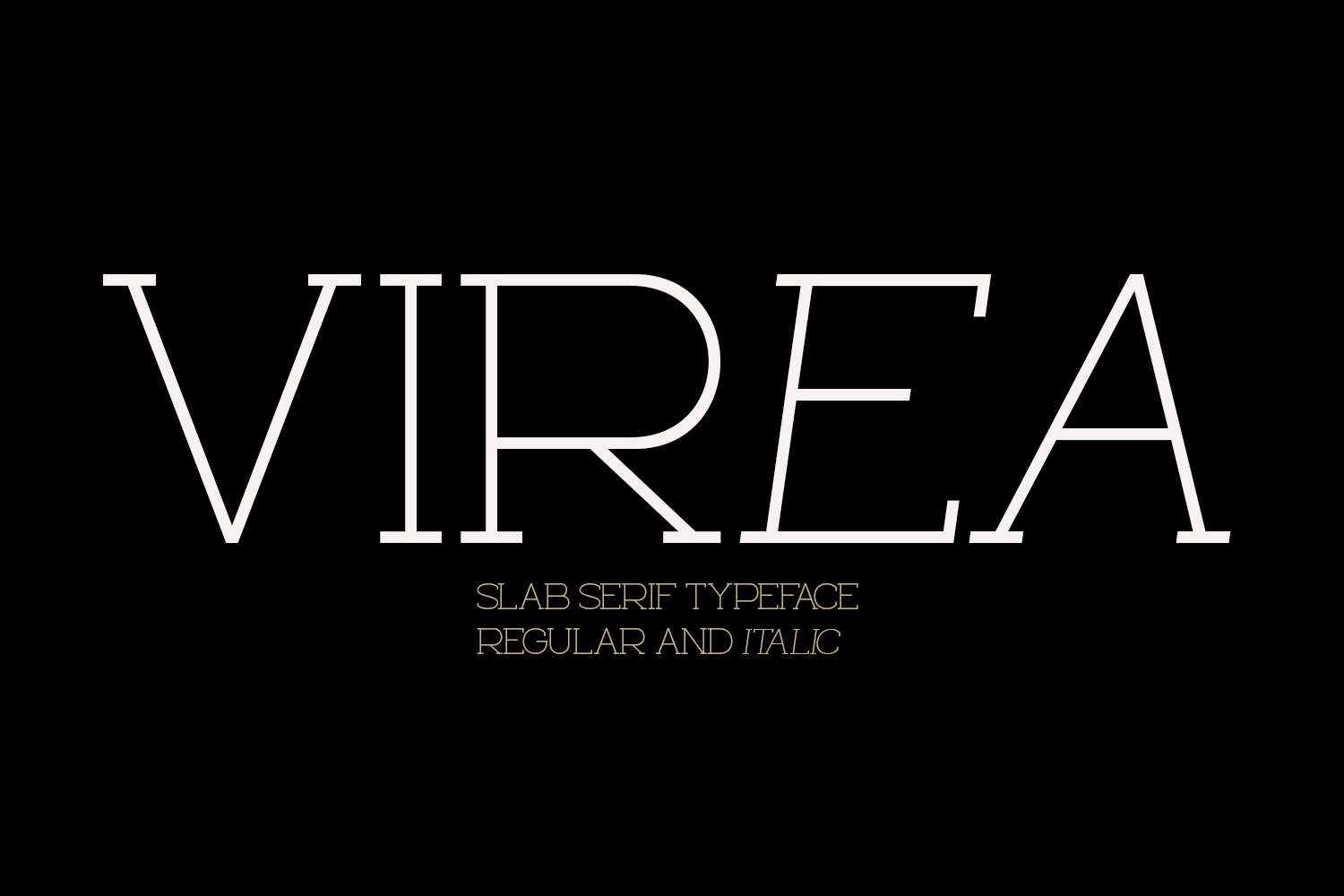
Virea - Elegant Thin Slab Serif Font
Virea is An ultra-light modern serif with delicate hairline strokes, elegant, and a luxurious editorial aesthetic ideal for fashion, beauty, and premium branding projects.
This font appears to be a thin, high-contrast modern serif typeface with strong Didone-inspired characteristics. It combines elegant fashion-editorial styling with a geometric, minimalist construction.